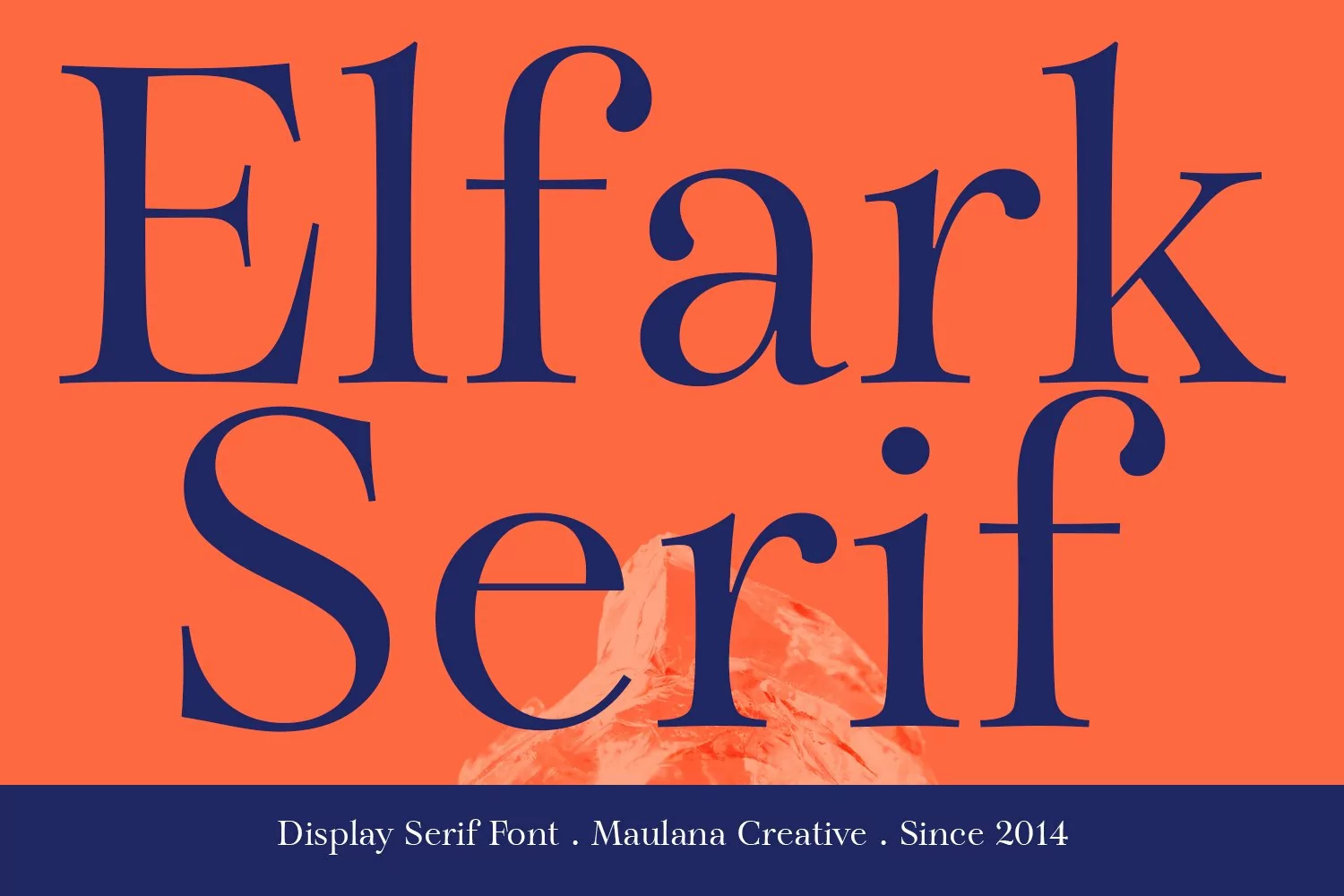
Elfark is a classical serif display font. Regular stroke, fun character with a bit of ligatures and alternates. To give you an extra creative work. Elfark font support multilingual more than 100+ language. This font is good for logo design, Social media, Movie Titles, Books Titles, a short text even a long text letter and good for your secondary text font with script or serif. Make a stunning work with Elfark font.